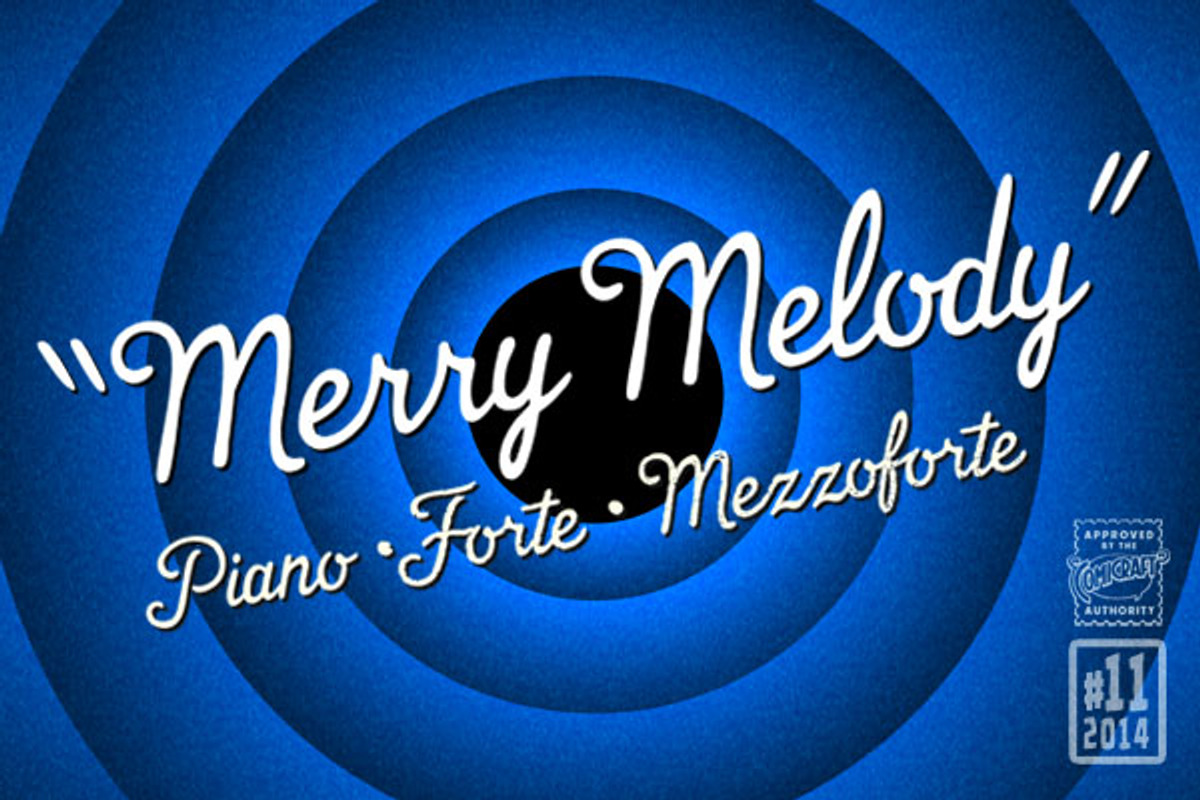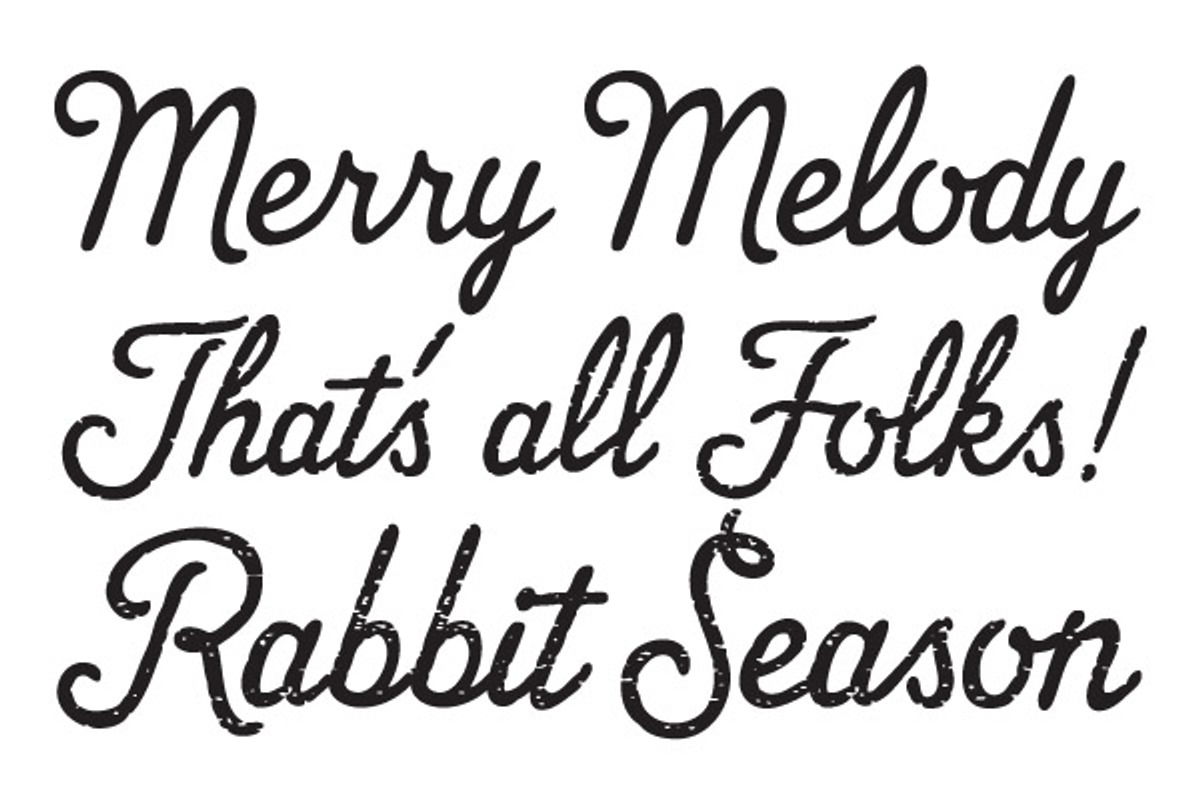
Merry Melody
Merry Melody by Comicraft Fonts is a font selected for branding, posters, packaging, typography.
Why Merry Melody is worth a look
Merry Melody by Comicraft Fonts fits naturally into Branding, posters, packaging, typography.